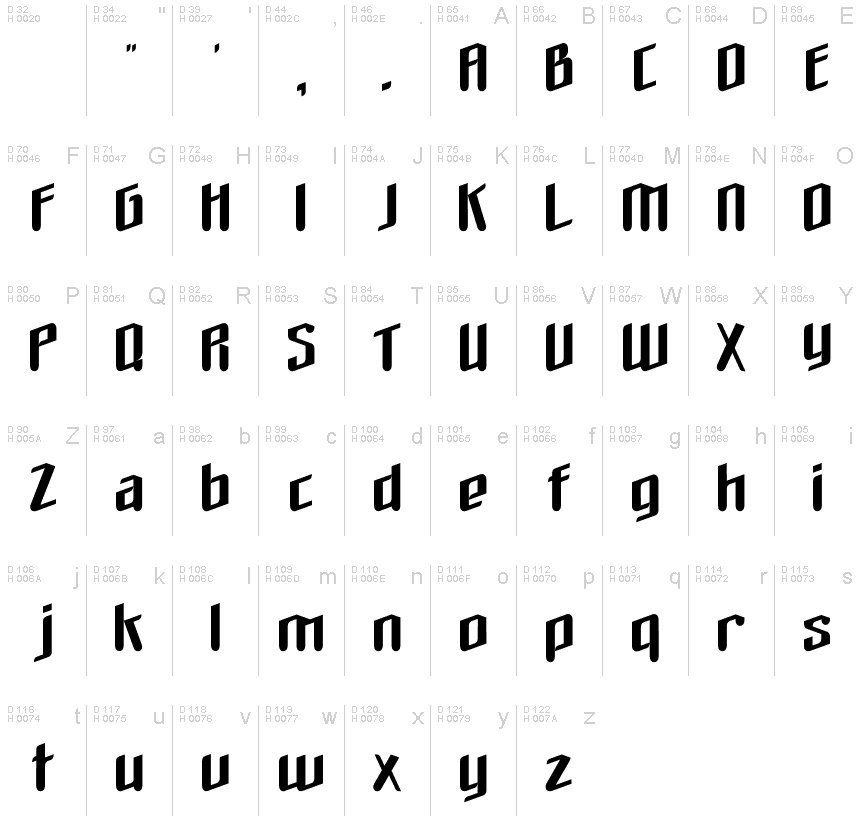
Theloveyoufindinfonts
The Love You Find in Fonts, designed by Peridot Kitchen-Sink, is a stunning gothic typeface with modern flair. Its semi-condensed width makes it perfect for titles and headlines where you want to make a bold statement. This font is suitable for various projects such as branding, book covers, packaging designs, and social media posts. With its unique style and versatility, the Love You Find in Fonts will add a touch of elegance and sophistication to any project. Let this font help you express your creativity and captivate your audience with its distinct charm.